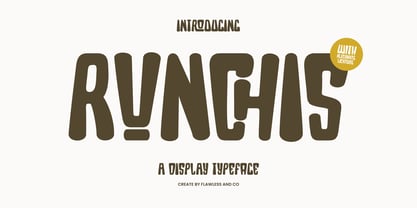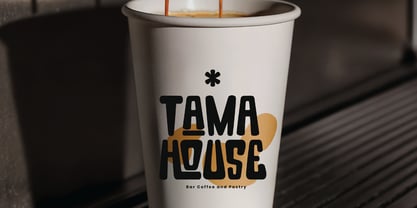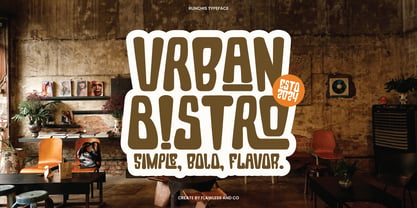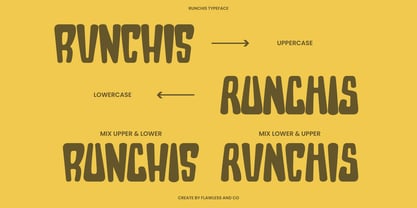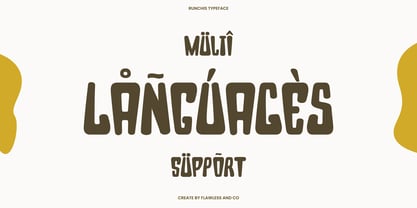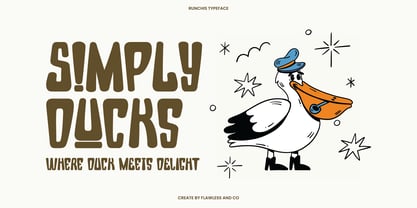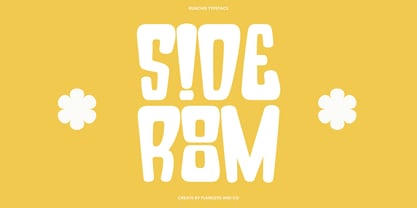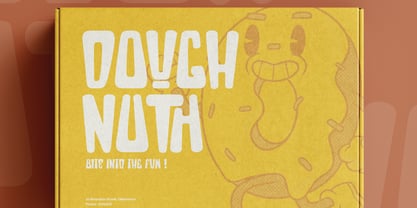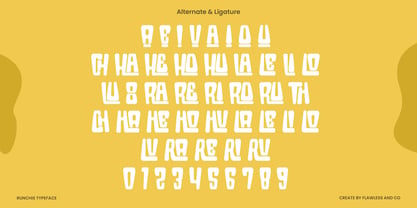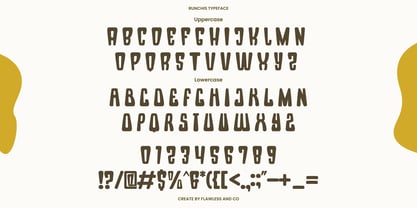
Runchis
RUNCHIS a loud, bouncy, and full-of-character display font that brings fun to the forefront. With chunky curves, playful alternates, and a unique retro-modern blend, RUNCHIS makes your message unmissable. Whether it’s for a brand, a bistro, a toy label, or packaging design – RUNCHIS does more than speak, it shouts with style.
Features :
Multilingual, Uppercase alphabet A-Z, Lowercase alphabet a-z, Numbers 0-9, Some punctuation
Alternates & Ligatures